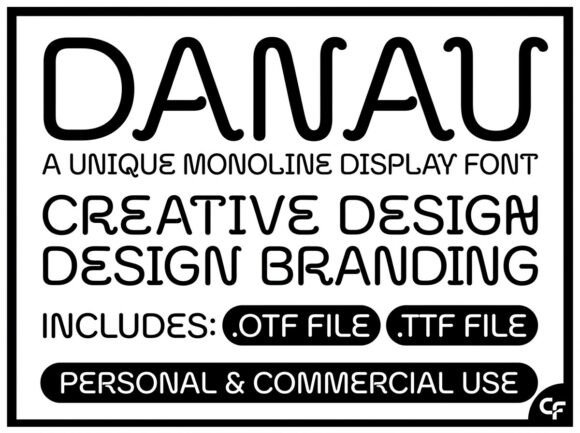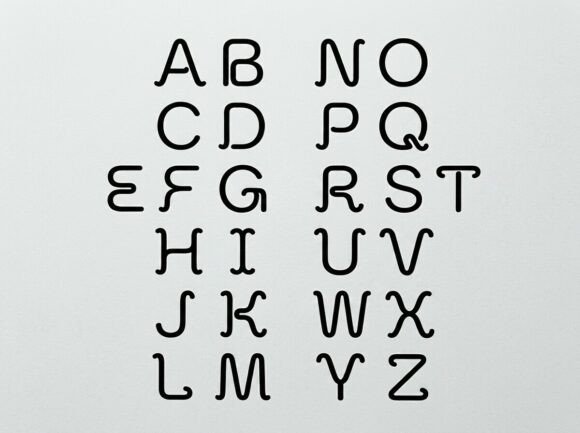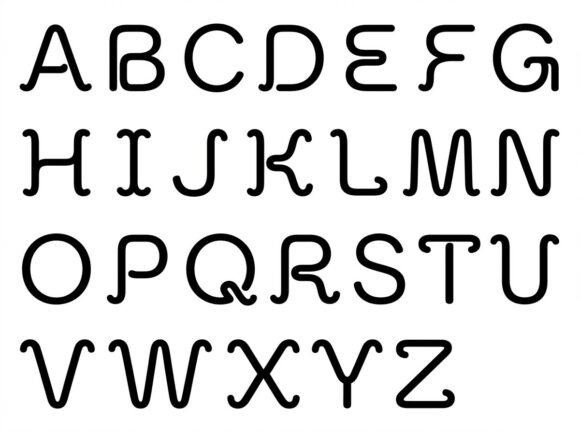
Unleashing Minimalist Beauty: The Story Behind Danau Font
As designers, we’ve all experienced that moment when a single font can elevate an entire design. It’s the spark that ignites creativity, the missing piece that brings harmony to a composition. For me, it was the discovery of Danau Font – a monoline display font that embodies the essence of minimalist fluidity. Designed for modern clarity, Danau Font is a masterclass in simplicity, with clean, consistent stroke weights and elongated curves that create a sophisticated architectural rhythm.
Danau Font is more than just a typeface; it’s a versatile tool for designers seeking to convey a sense of effortless contemporary beauty. Its unique features, such as soft terminals and innovative apertures, offer a friendly yet professional aesthetic that’s perfect for minimalist branding, architectural signage, and high-end lifestyle magazines.
Danau Font Key Features
- Font Family: Danau Font is a sans-serif font family with multiple styles, including Regular, Bold, Italic, and Bold Italic.
- Unique Characteristics: Danau Font features a clean and modern design, with a subtle rounded edge and a large x-height, making it highly legible and readable.
Design Review: Danau Font
Overall, I think Danau Font is a great addition to any designer’s toolkit, but like any font, it has its strengths and weaknesses.
- Elegant and Modern Look: Danau Font has a sleek, modern design that’s perfect for a variety of applications, from corporate branding to digital interfaces.
- High-Quality Glyphs: The font’s glyphs are well-crafted and detailed, making it a great choice for text-heavy designs.
- Good Legibility: Danau Font is easy to read, even at smaller font sizes, which is essential for digital designs.
- Limited Character Set: Danau Font may not support as many languages as some other fonts, which could be a limitation for global brands or designs.
- No Bold or Italic Options: While the font’s regular weight is great, the lack of bold and italic options may limit its versatility.
Danau Font is a solid choice for designers looking for a modern, elegant font. While it may have some limitations, its strengths make it a great addition to any design toolkit. With a little creativity and flexibility, designers can work around its limitations and create stunning designs with Danau Font.
Getting the Most Out of Danau Font
Danau Font is ideal for use in branding materials, such as logos and business cards, as well as in digital marketing campaigns and social media graphics.
It’s also suitable for use in educational materials, such as presentations and brochures, and in creative projects, such as infographics and posters.
Alternatives to Danau Font
Alegreya
Alegreya is a serif font designed by Juan Pablo del Peral. It is a great alternative to Danau Font for body text and headings, offering a similar elegant and refined look. However, Alegreya is more versatile and suitable for longer texts, making it a better choice for books, articles, and editorials. Compared to Danau Font, Alegreya has a more subtle and classic feel.
Playfair Display is an elegant and luxurious serif font designed by Claus Eggers Sørensen. It is perfect for titles, headings, and short paragraphs where a touch of sophistication is required. Unlike Danau Font, Playfair Display is more ornate and decorative, making it ideal for branding, advertising, and luxury packaging. However, its ornate nature may make it less readable for large blocks of text.
Is Danau Font compatible with accessibility standards?
Yes, Danau Font is designed to be compatible with accessibility standards. The font has a clear and legible design, making it easy to read for people with visual impairments. Additionally, the font is optimized for display on various screen sizes and resolutions, ensuring that it meets the requirements of accessibility standards such as WCAG 2.1